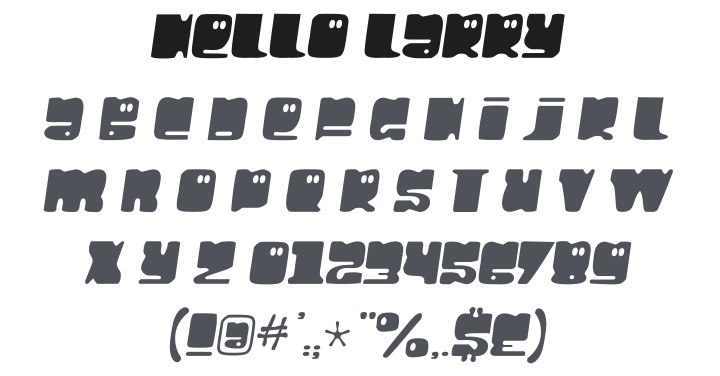
Hello Larry Font
About Hello Larry
Hello Larry is a wonderfully anarchic groovy display typeface that, as its creator puts it, "kicks common sense to the curb". Its wild, unpredictable letterforms bounce with irreverent 1960s–70s psychedelic energy — bold, unconventional, and proudly ridiculous. Perfect for retro party posters, novelty branding, comedy graphics, funky merchandise, and any design that cheerfully ignores the rules.